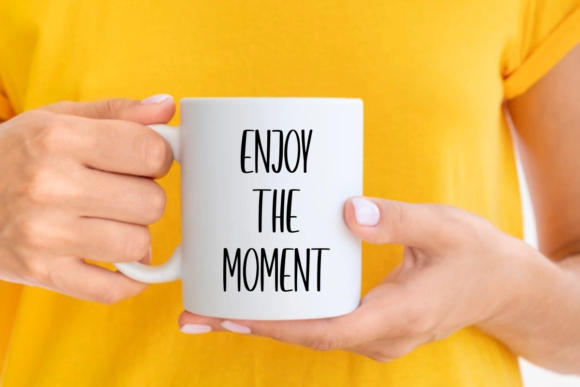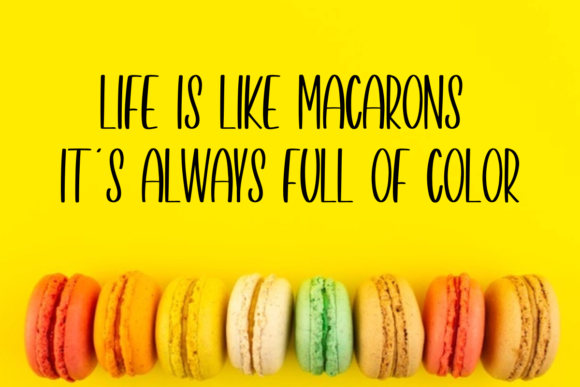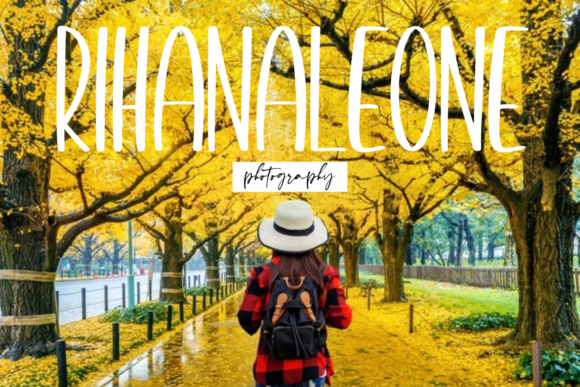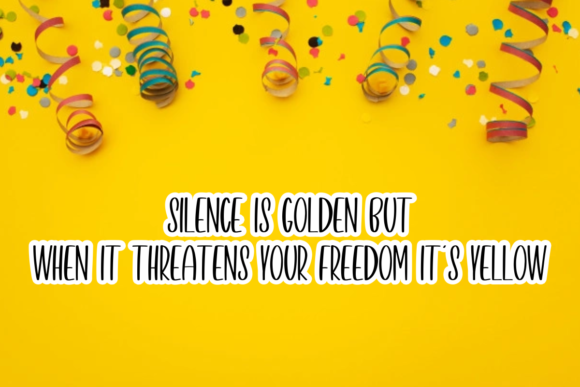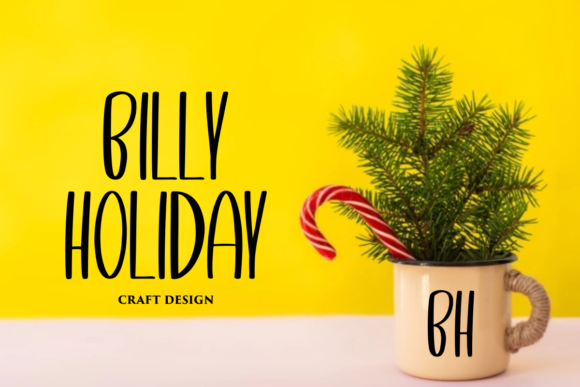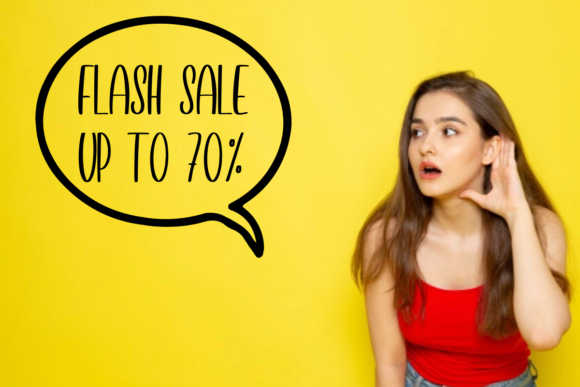
The Perfect Blend of Creativity and Joy: Here Comes the Sun Font
As you sit in your cozy studio, sipping your morning coffee, and staring at a blank canvas, the question often pops up: “What font will bring my design to life?” It’s that moment when the perfect typography can make all the difference. For designers looking to infuse their work with a sense of warmth and friendliness, the answer lies in a delightful display font – Here Comes the Sun Font.
This charming font is more than just a pretty face; it’s a versatile tool that can elevate any design project. Whether you’re creating branding materials, product packaging, or a simple invitation, Here Comes the Sun Font is the perfect companion. Its casual and natural vibe makes it incredibly adaptable to a wide range of designs, making it a valuable asset for designers looking to add a personal touch to their work.
- Unique Characteristics: The font features a distinctive, hand-drawn design with subtle imperfections, giving it a warm and organic feel.
Designer Review: Here Comes the Sun Font
As a designer, I was excited to dive into the “Here Comes the Sun Font”. This font has a unique blend of retro and modern elements, which immediately caught my attention.
- ✨ Unique Character Set: The font features a distinctive character set that adds a touch of whimsy to any design.
- ✨ Versatility: Whether you’re designing for a music festival or a summer-themed campaign, this font is sure to bring a sunny vibe.
- ✨ Legibility: Despite its playful feel, the font is surprisingly legible, making it suitable for a wide range of applications.
- ⚠️ Limited Font Weight Options: While the font comes in a few different weights, it would be nice to have more options to achieve the perfect balance between boldness and legibility.
- ⚠️ Limited International Support: Unfortunately, the font does not support a wide range of languages, which may limit its use in international design projects.
Overall, I think the “Here Comes the Sun Font” is a fun and quirky addition to any designer’s toolkit. While it has its limitations, it’s perfect for adding a touch of personality to designs that need a little extra sunshine.
– Use it for titles and headings to add a touch of elegance.
– Pair it with a clean sans-serif font for body text.
– Experiment with different font sizes and styles to create visual interest.
The Here Comes the Sun Font is ideal for use in:
– Music-related designs, such as album covers and concert posters.
– Fashion designs, such as clothing labels and promotional materials.
– Event invitations and wedding stationery.